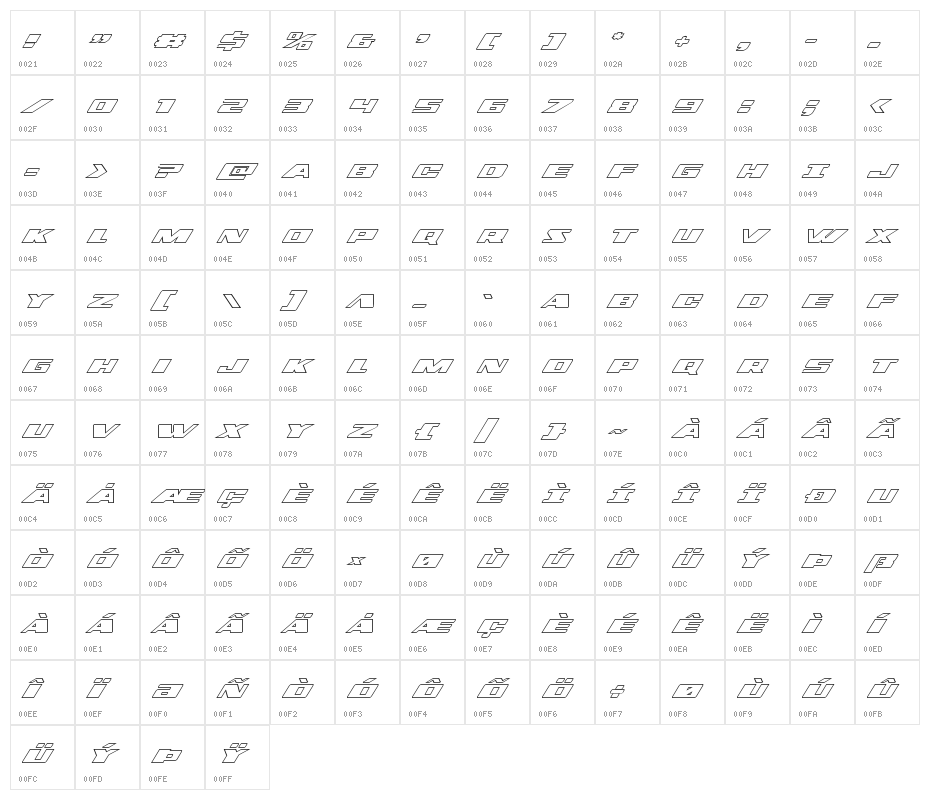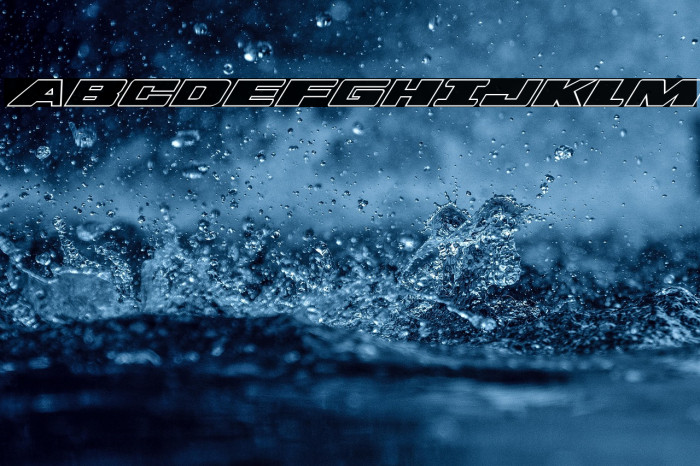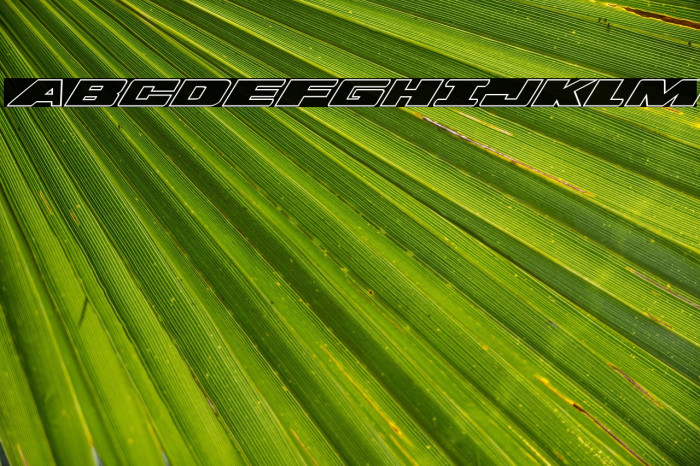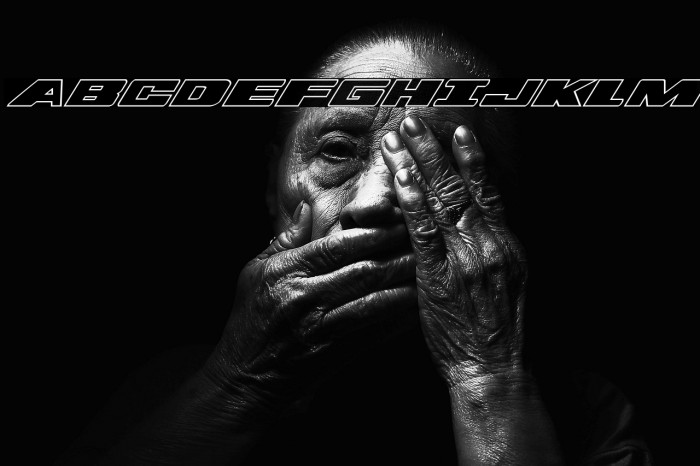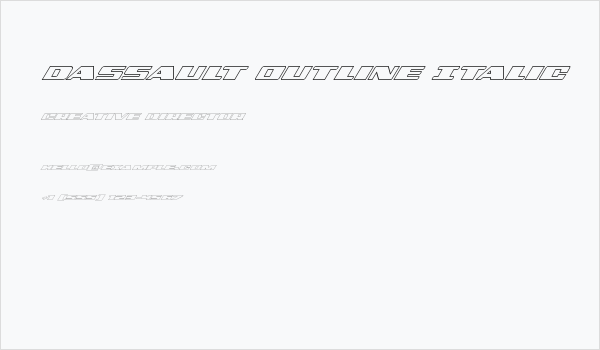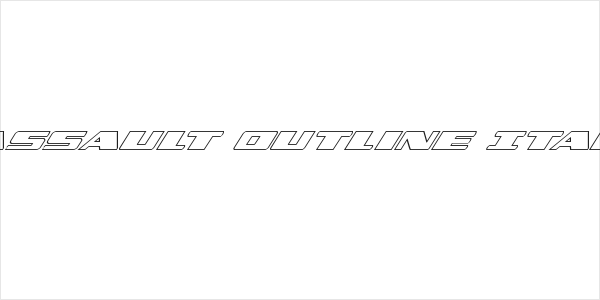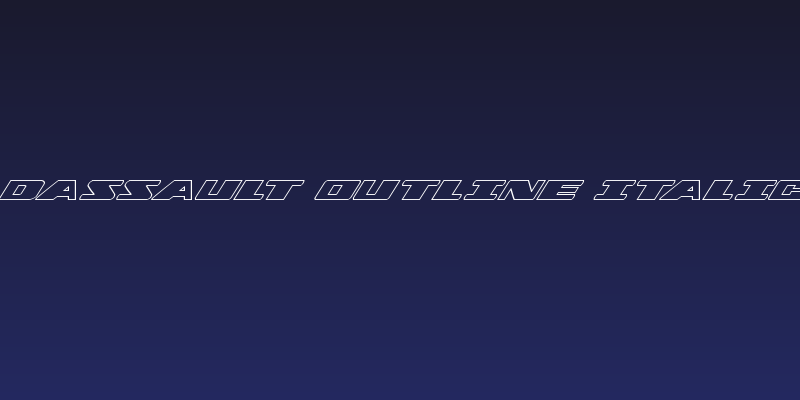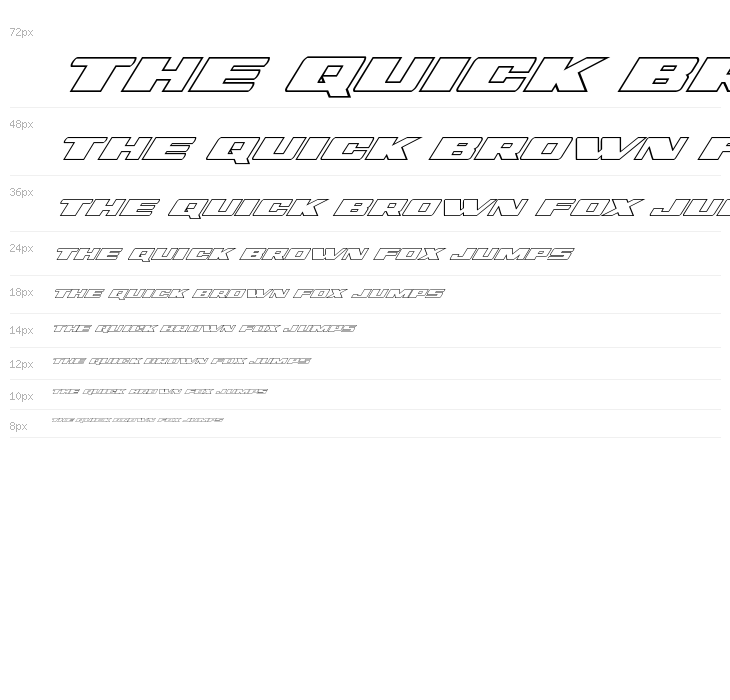
Dassault Outline Italic Font
Dassault Outline Italic Description
This font features a bold, italicized outline style with a futuristic and dynamic appearance. The characters are designed with sharp angles and a distinct slant, giving them a sense of motion and speed. The outline effect adds depth and dimension, making the letters stand out prominently. The uppercase and lowercase letters maintain a consistent style, with the numbers and special characters following suit. This font's unique design makes it suitable for projects that require a modern and edgy look.